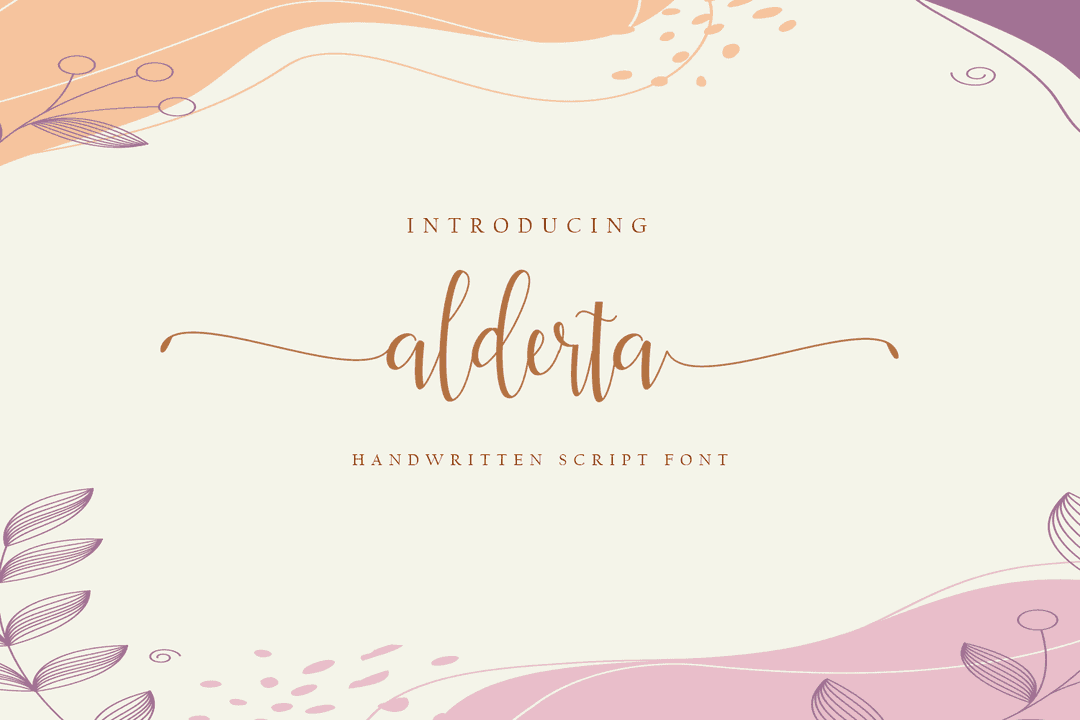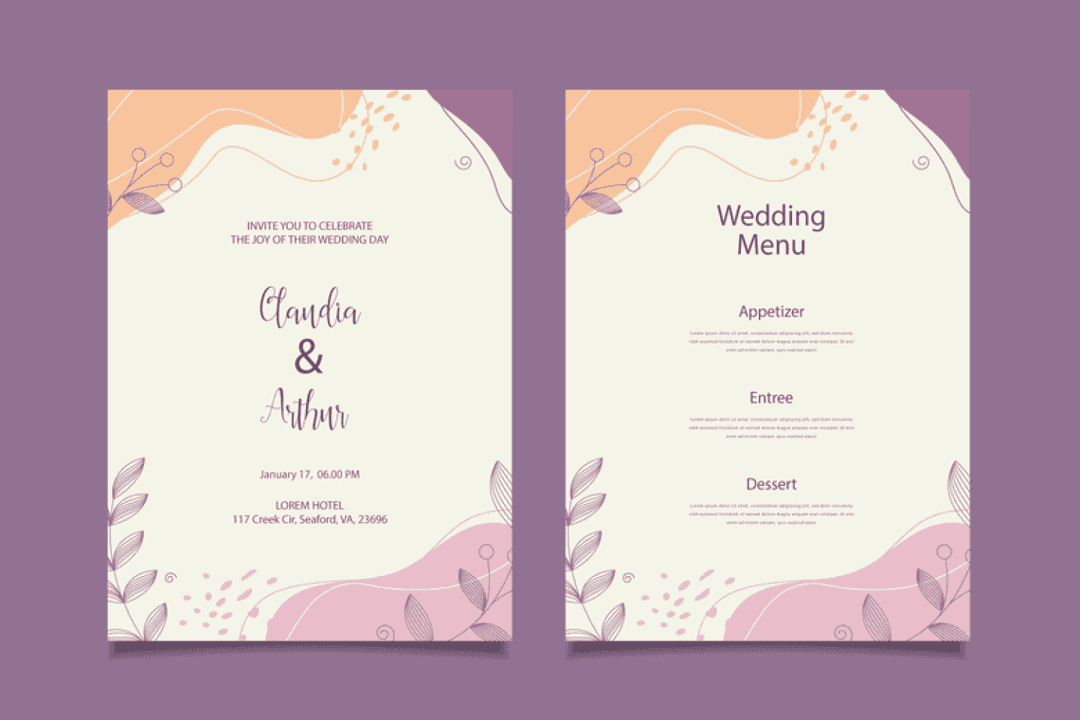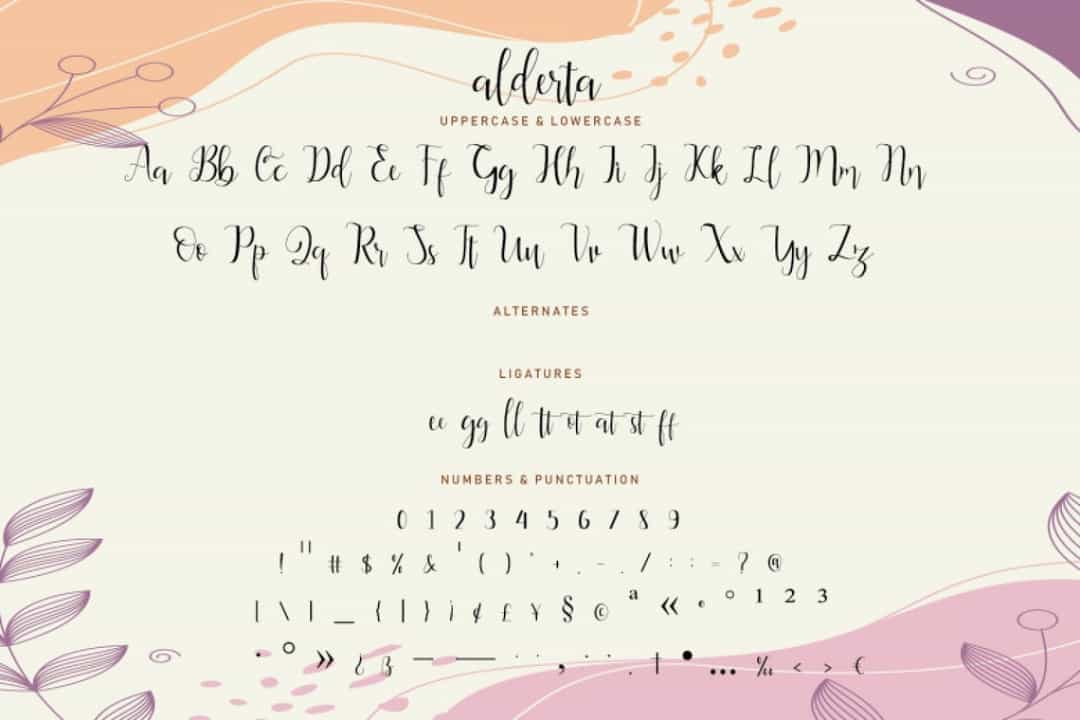
Alderta is an elegant script typeface that stands out. With its distinct and well-rounded letters, Alderta makes for stunning artwork! Fall in love with its incredible versatility to craft stunning designs! PUA encoded so you can use all swashes and glyphs effortlessly!